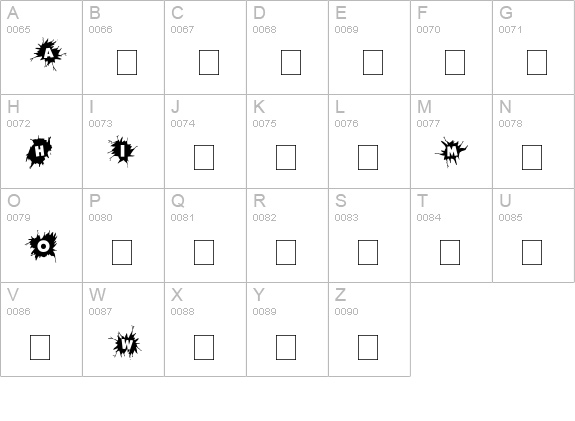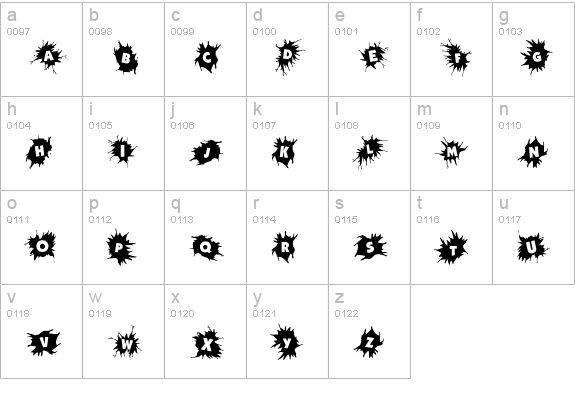
WhereCracksAppear Font Details
WhereCracksAppear font is a unique and captivating typeface that is sure to catch the eye and make a lasting impression. With its distinct cracked texture, this font adds an edgy and dramatic touch to any design project. Whether you're looking to create eye-catching posters, attention-grabbing headlines, or add a touch of intrigue to your logo, WhereCracksAppear font is the perfect choice. This font features a bold and dynamic style, with each letter appearing as if it has been cracked and shattered, adding a sense of depth and character to your text. The cracks and imperfections in the letters give the font a raw and authentic feel, making it ideal for projects that require a touch of grunge or urban aesthetic. What sets WhereCracksAppear font apart is not only its visually striking appearance but also its versatility. This font can be used in a variety of design applications, from print to digital, ensuring that it is a valuable asset in any designer's toolkit. And the best part? WhereCracksAppear font is available for free download at FontsMarket.com. Yes, you read that right – completely free! You can easily access and download this font without any hassle, allowing you to incorporate it into your designs with ease. So, if you're looking to add a touch of intrigue and excitement to your designs, look no further than WhereCracksAppear font. Its bold and captivating style, combined with its availability as a free download, make it a must-have for designers seeking to make a statement. Don't miss out on this fantastic font – download WhereCracksAppear today and let your creativity soar.